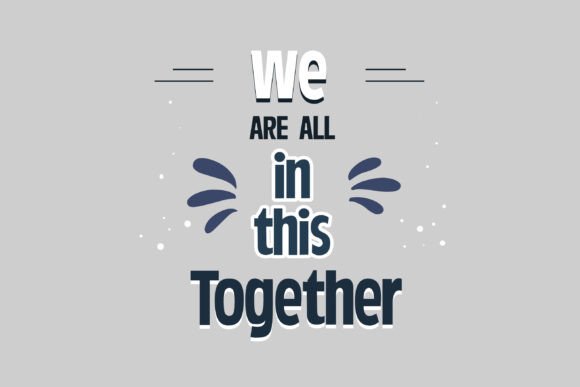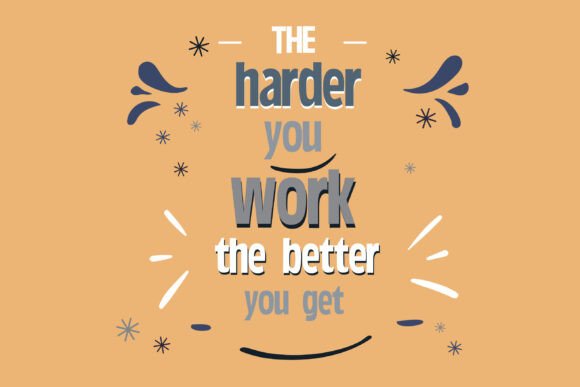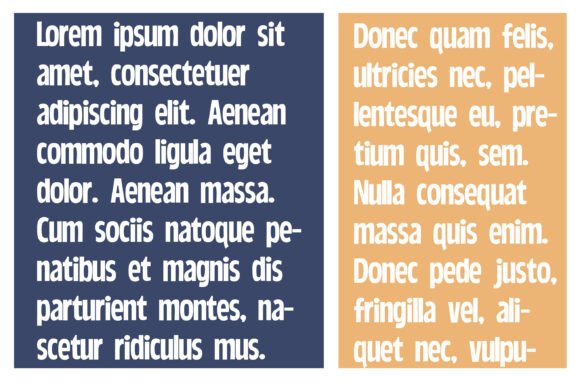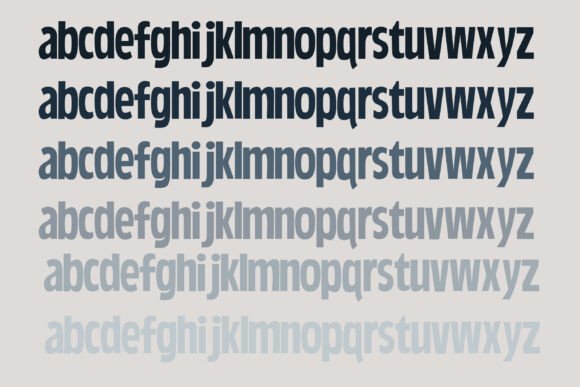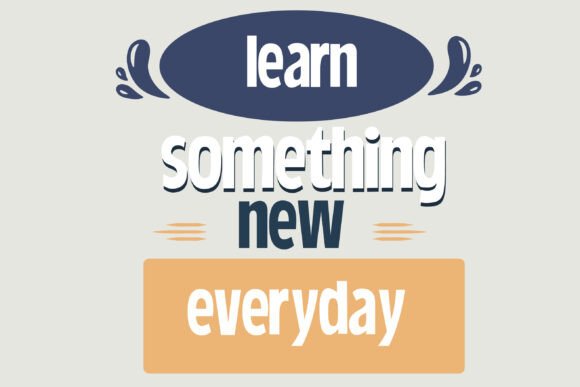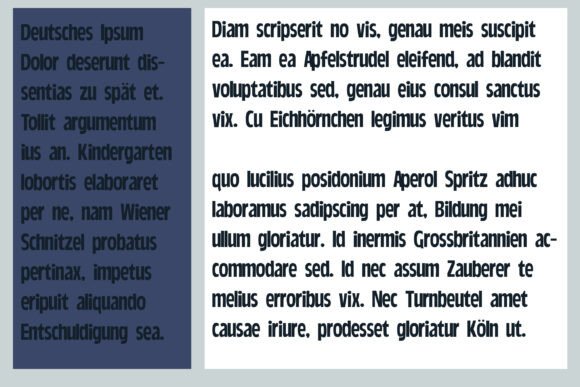
Introduction to Rumor Mill Font
As designers, we’ve all been there – staring at a blank canvas, waiting for that perfect font to bring our creative project to life. For some, it’s a moment of serendipity, while for others, it’s a painstaking process of trial and error. But what if I told you that there’s a font that’s not only easy to find, but also perfect for adding that extra oomph to your designs? Say hello to the Rumor Mill Font, a stunning hand-crafted sans serif that’s sure to elevate your creative project to the next level.
With its bold and playful nature, the Rumor Mill Font is ideal for titles, displays, and posters. Plus, it comes in both light and bold versions, giving you the flexibility to choose the perfect style to match your design resource. And the best part? It’s available for a free download, making it a valuable addition to any designer’s toolkit.
Key Features of Rumor Mill Font
- Rumor Mill Font is a high-quality, free download design resource ideal for creative projects.
- Features a unique, hand-drawn design with a transparent background, making it perfect for layered designs and creative compositions.
- The font includes a wide range of characters, including uppercase and lowercase letters, numbers, and special characters, making it suitable for various design needs.
- Designed to be versatile and adaptable, Rumor Mill Font is suitable for a variety of creative projects, from digital art to print materials.
- This design resource is perfect for designers, artists, and creatives looking for a unique and high-quality font to enhance their work.
Honest Review: Rumor Mill Font
As a designer, I’m always on the lookout for high-quality design resources to elevate my creative projects. The Rumor Mill Font is a recent addition to my design arsenal, and I’m excited to share my thoughts on this versatile font.
- ✨ High-quality design: The Rumor Mill Font is meticulously crafted with attention to detail, resulting in a polished and professional look that’s perfect for a wide range of creative projects.
- ✨ Transparent background: This font is ideal for designs that require a transparent background, allowing your content to take center stage.
While the Rumor Mill Font is an excellent choice for many projects, I do have a few minor complaints:
- ⚠️ Limited character set: The font’s character set is somewhat limited, which may not be suitable for designs that require a wide range of characters or languages.
- ⚠️ Not ideal for small text: The font’s size may not be suitable for small text, as it can become difficult to read.
Overall, I’m impressed with the Rumor Mill Font’s quality and versatility. It’s an excellent choice for designers working on creative projects that require a high-quality, free font with a transparent background.
Tips for Getting the Most Out of Rumor Mill Font
Use the Rumor Mill Font in creative projects that require a modern and edgy look. Experiment with different font sizes and styles to create visual interest. Combine the font with other design elements to create a unique design.
The Rumor Mill Font is ideal for designing social media graphics, posters, flyers, and other marketing materials. Its high-quality design and transparent background make it perfect for creating eye-catching and engaging designs.